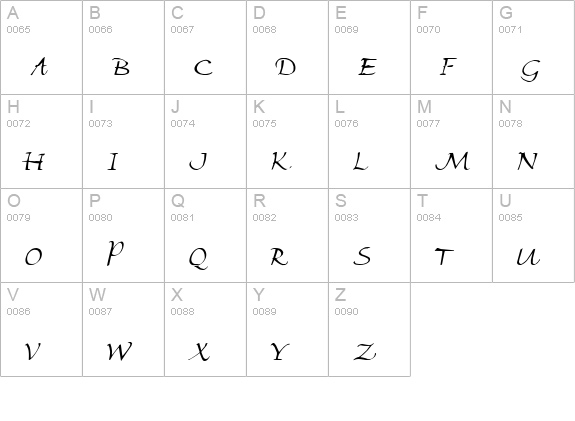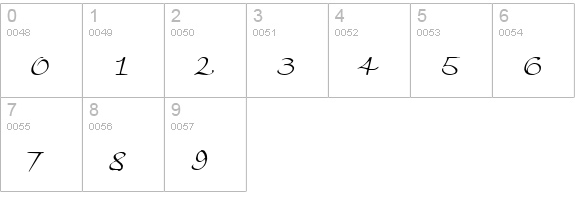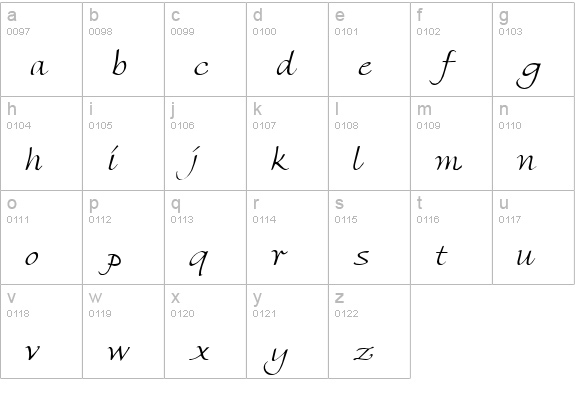
Vinegar Font Details
Vinegar font is a delightful display typeface that exudes a unique and playful charm. With its whimsical curves and stylish flair, Vinegar font is perfect for adding a touch of personality to your designs. Whether you're working on a trendy poster, eye-catching logo, or fun social media graphic, Vinegar font is sure to make your text stand out. The best part? Vinegar font is completely free to download at FontsMarket.com. This means you can easily add this versatile font to your collection without breaking the bank. So why wait? Elevate your designs with Vinegar font today and let your creativity shine!